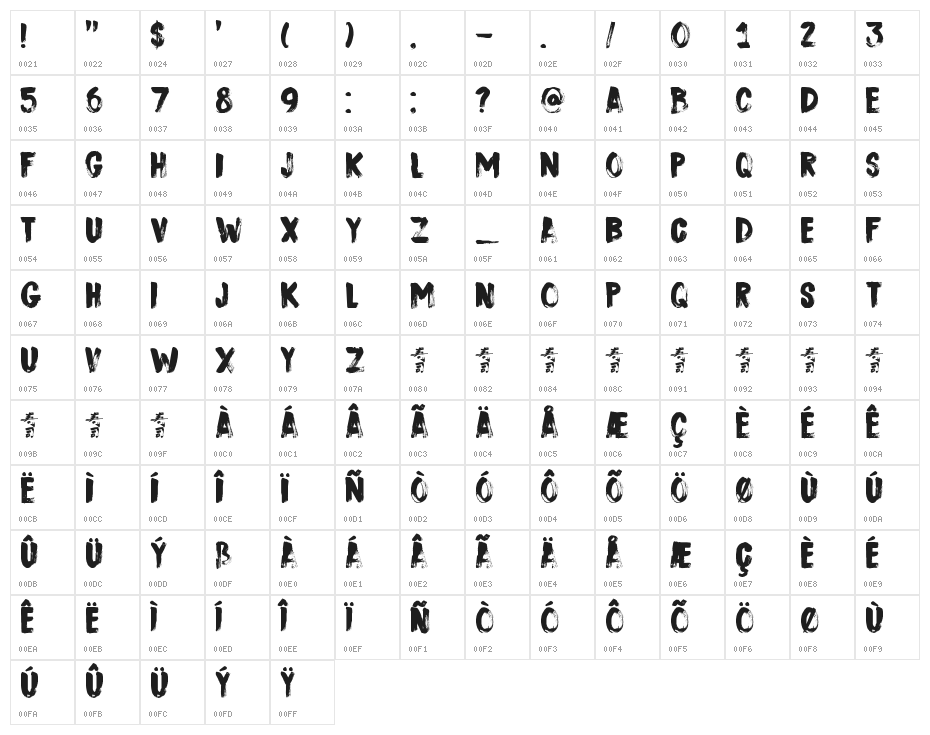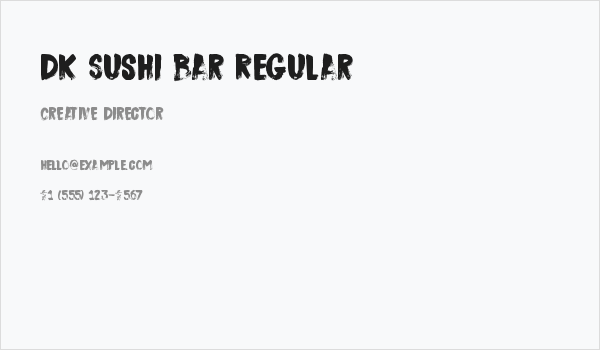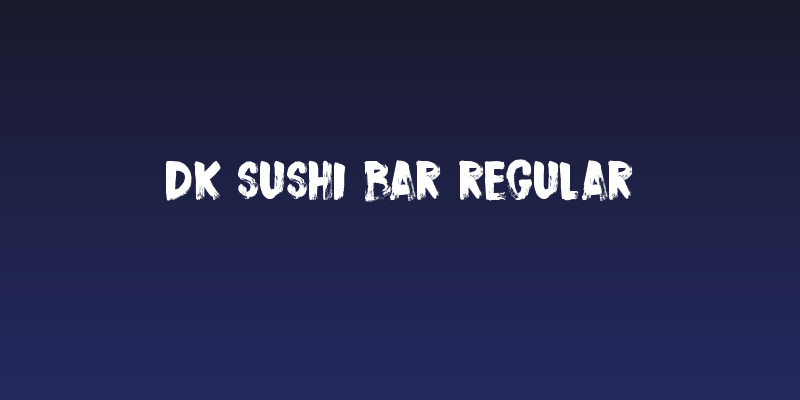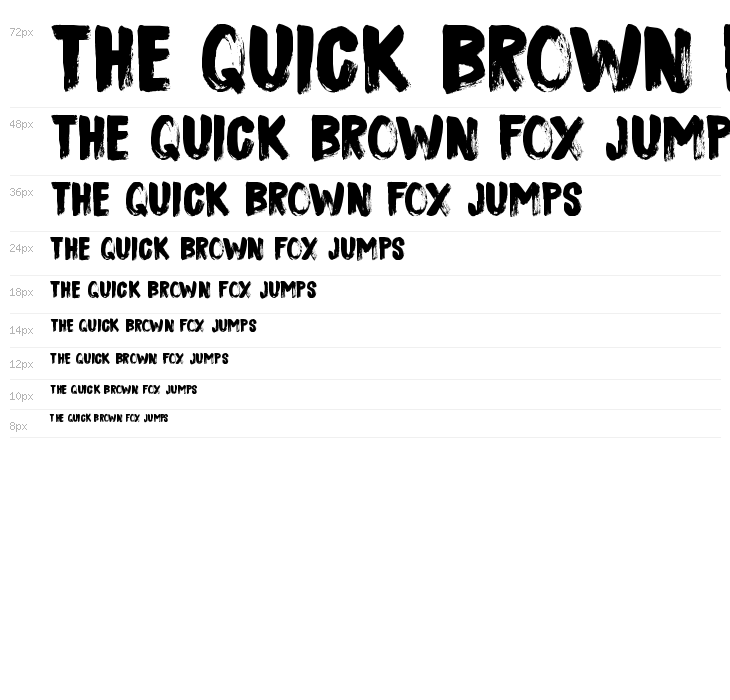
DK Sushi Bar Regular Font
DK Sushi Bar Regular Description
This font features a bold, brushstroke style that exudes a sense of energy and dynamism. The characters are crafted with a rough, textured appearance, reminiscent of hand-painted signage or artistic calligraphy. Each letter has a unique, organic feel, with varying thicknesses and irregular edges that add to its expressive nature. The font captures a raw, artistic vibe, making it ideal for projects that require a bold and creative touch. Its distinctive style is both eye-catching and memorable, perfect for making a strong visual impact.
| Overall Style | Artistic, Expressive |
| Proposed Projects | Ideal for branding, posters, artistic projects, and any design requiring a bold, creative flair. |